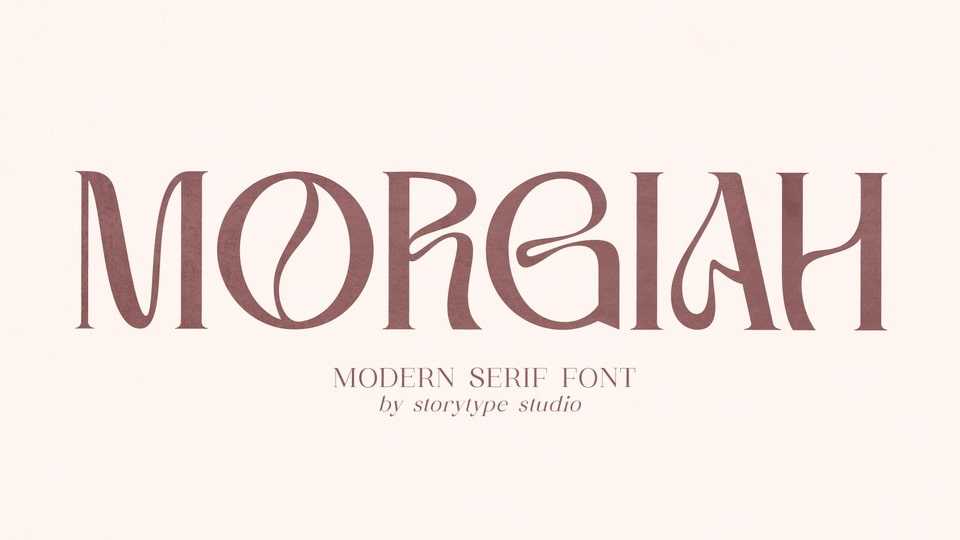
Download Morgiah font, an aesthetic serif typeface that has own unique style and modern look. Morgiah font is perfect for an elegant and luxury logo, book or movie title design, fashion brand, magazine, clothes, lettering, quotes, and so much more.